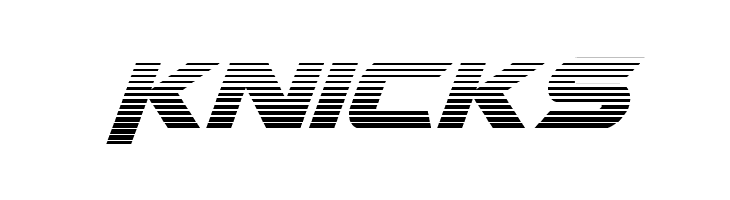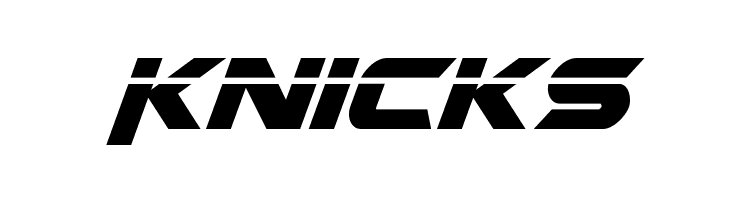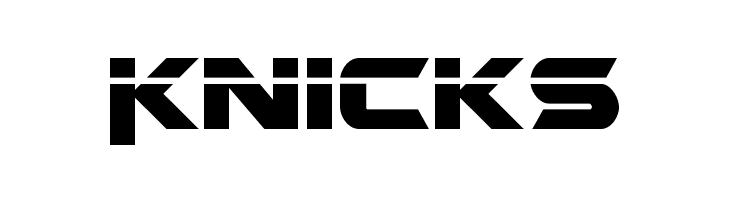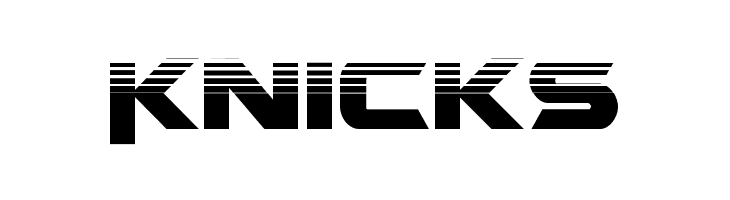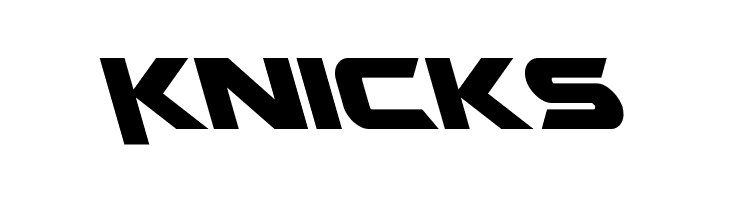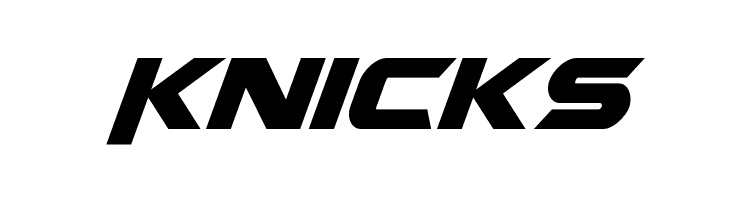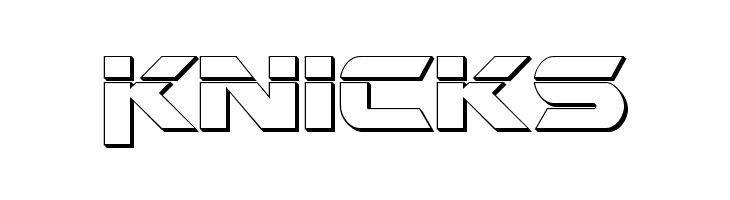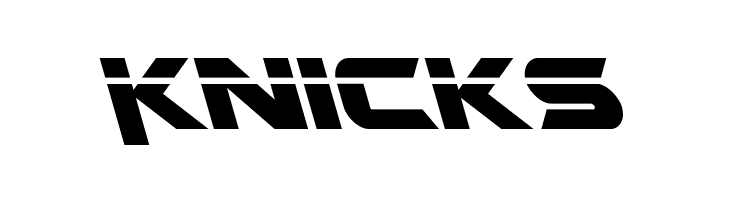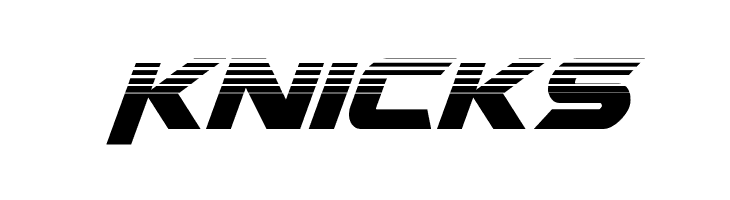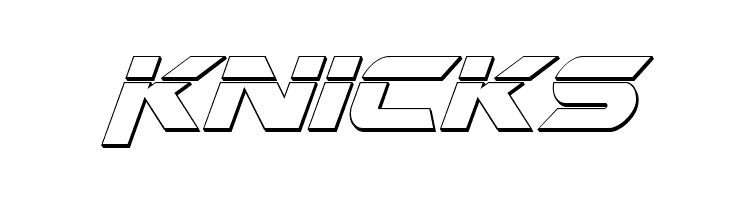
• Gemina 2 Gradient Italic
A futuristic italic font with gradient lines and a dynamic, speedy appearance.
• Gemina 2 Halftone
A bold, futuristic font with a halftone effect and geometric shapes.
• Gemina 2 Halftone Italic
A bold, italicized font with a halftone effect, perfect for dynamic and modern designs.
• Gemina 2 Italic
A bold, italic font with a modern, angular design.
• Gemina 2 Laser
A bold, futuristic font with geometric shapes and sharp angles.
• Gemina 2 Laser 3D
A bold, futuristic font with a 3D geometric design.
• Gemina 2 Laser 3D Italic
A futuristic, geometric, and italicized font with a 3D outline effect.
• Gemina 2 Laser Italic
A bold, italicized font with a futuristic, angular design.
• Gemina 2 Laser Leftalic
A bold, futuristic font with sharp angles and geometric shapes, ideal for tech and sci-fi themes.
• Gemina 2 Leftalic
A bold, angular, and futuristic font with a dynamic slant.